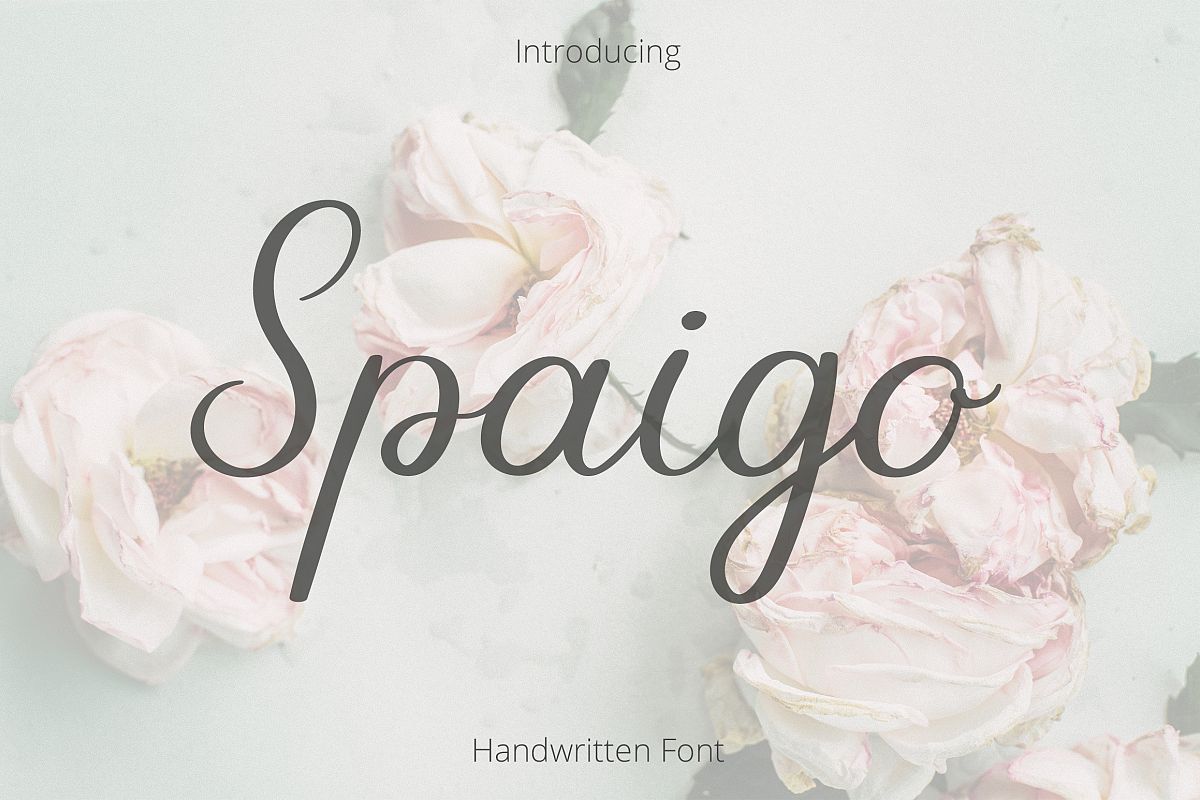
Spaigo. Handwritten script font
Introducing Spaigo
Handwritten elegant and romantic font. It's perfect for wedding invitations, greeting cards, romantic letters, overlays, ads, posters, logotypes, presentations, branding materials and any other interesting projects.